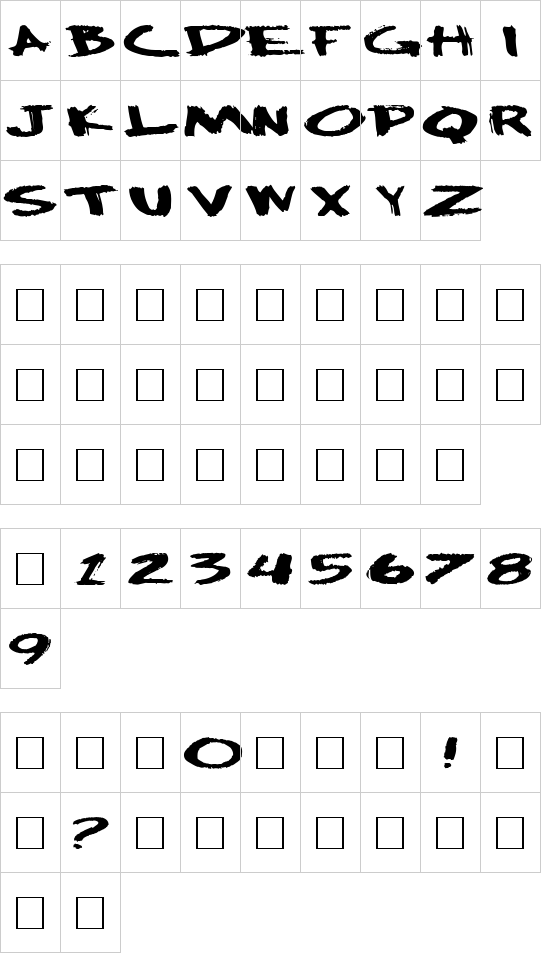
Big is a bold brush handwriting face with thick, energetic strokes that feel freely painted. The letters are laid down with a heavy, confident hand, carrying the rough edges and momentum of a loaded brush moving fast across the surface, so text reads as direct, lively, and unmistakably hand-made rather than printed.
Use it for streetwear graphics, expressive posters, music covers, and punchy social media headlines with a hand-painted edge. Big is free to download as a TrueType file, and you can preview it with your own text to see how the bold brush strokes read in your design.